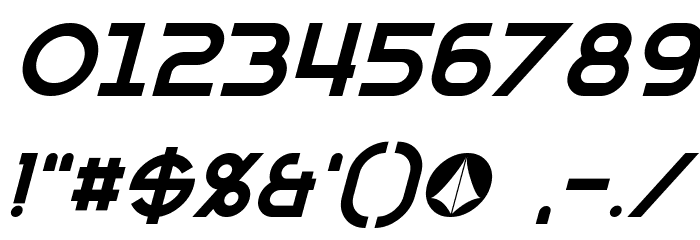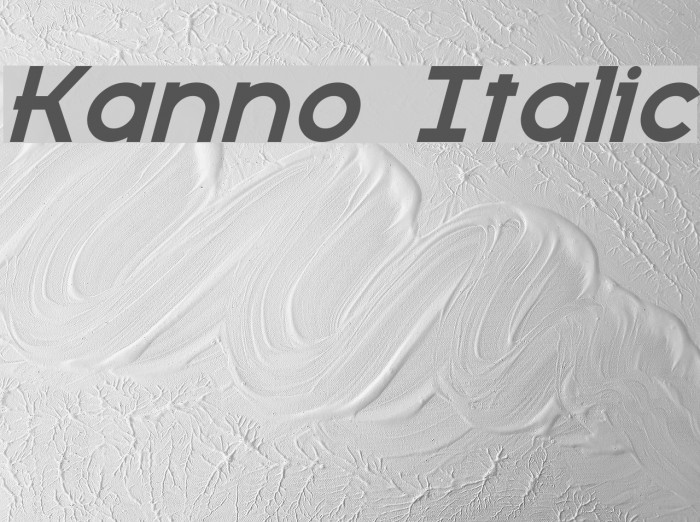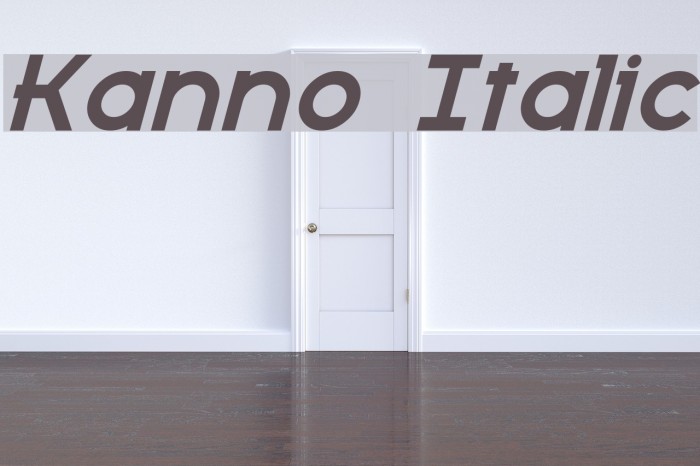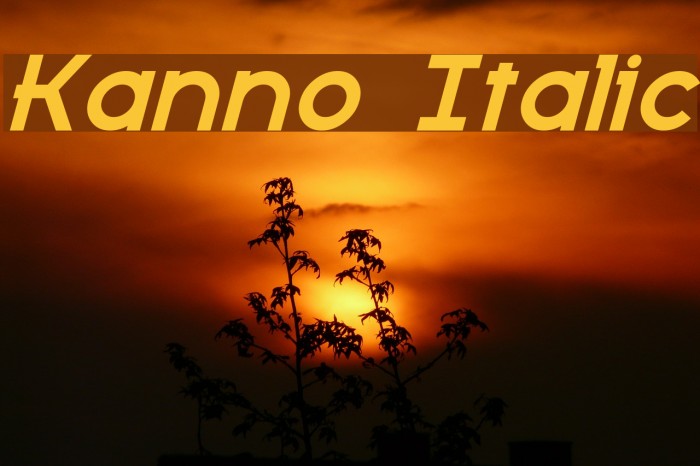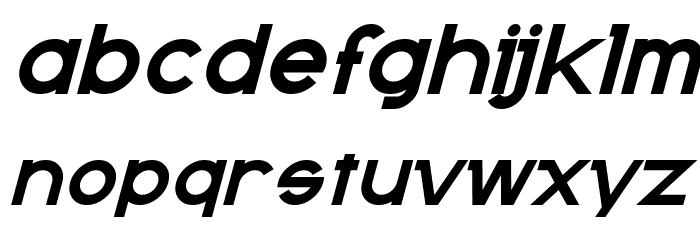
Kanno Italic Font
This font features a sleek, italicized style with a modern aesthetic. The characters are slightly slanted, giving a sense of motion and dynamism. The strokes are consistent in thickness, providing a uniform appearance across all characters. The uppercase letters are bold and prominent, while the lowercase letters maintain a smooth flow. The numerals are clear and easily distinguishable, complementing the overall design. Special characters are included, adding versatility for various uses. The font's design is both contemporary and functional, making it suitable for a wide range of applications.
A modern, italicized font with consistent stroke thickness and dynamic style.
• Proposed Projects: Ideal for branding, advertising, and digital media projects that require a modern and dynamic touch.
• Category: Sans-Serif
• Bold: Yes
• Italic: Yes
• Weight: Bold
• Width: Normal
• Character Spacing: Normal
• Contrast: Low
• Overall Style: Modern
• Use Case: Headlines, Logos, Digital Media